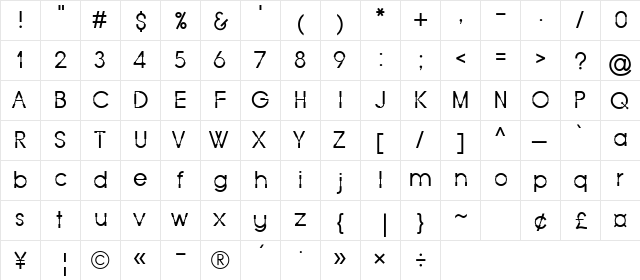
Force One Regular
Design Context for Force One Typeface
Force One has the bold swagger of sports branding: strong, assertive letterforms designed to dominate headlines and jerseys alike.
A natural choice for gym brands, fantasy sports, jersey lettering, and action-driven headlines.
Pro Tip: Use Force One in all-caps headlines where its athletic energy can fully express itself. Pair with a solid, simple sans for supporting text.